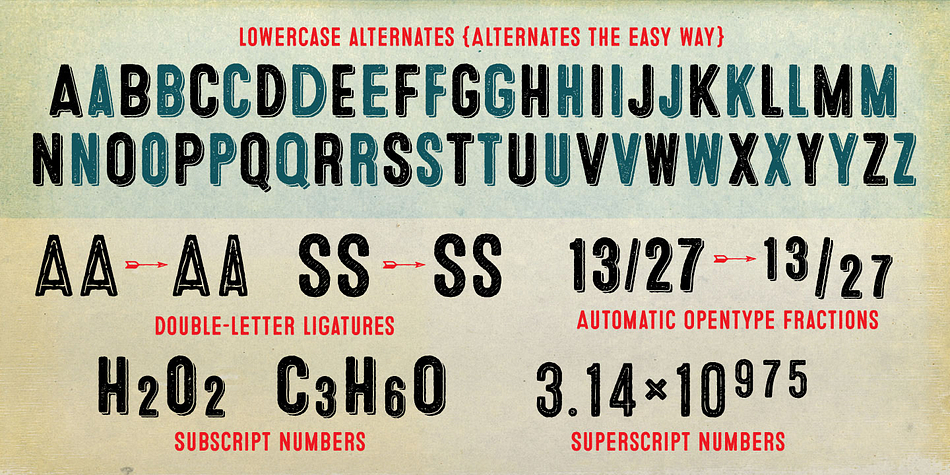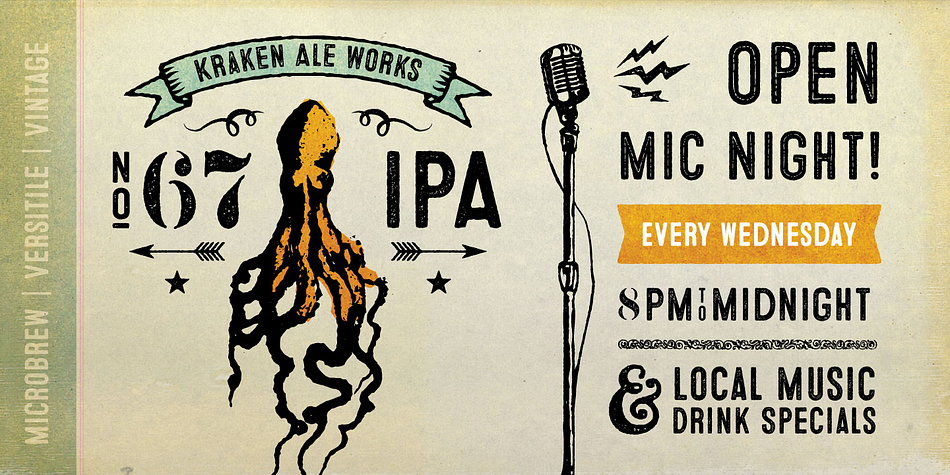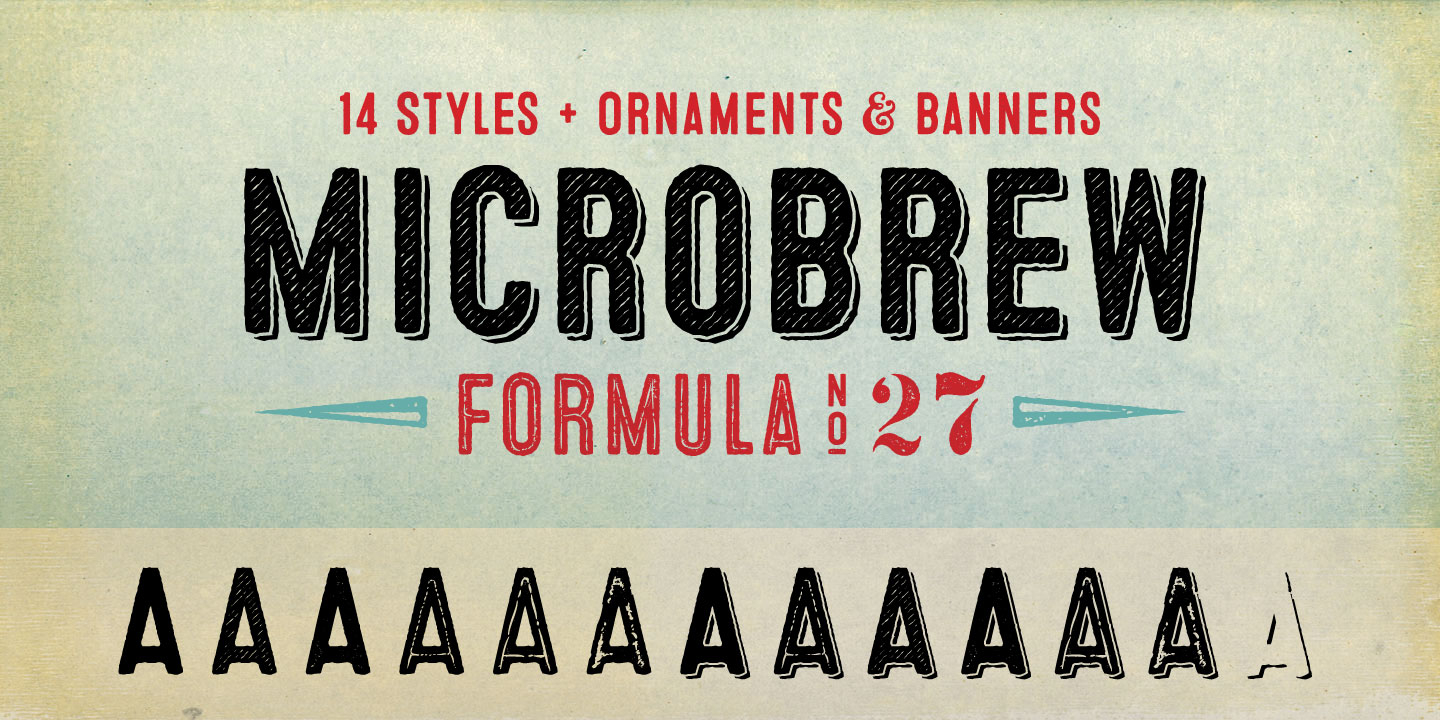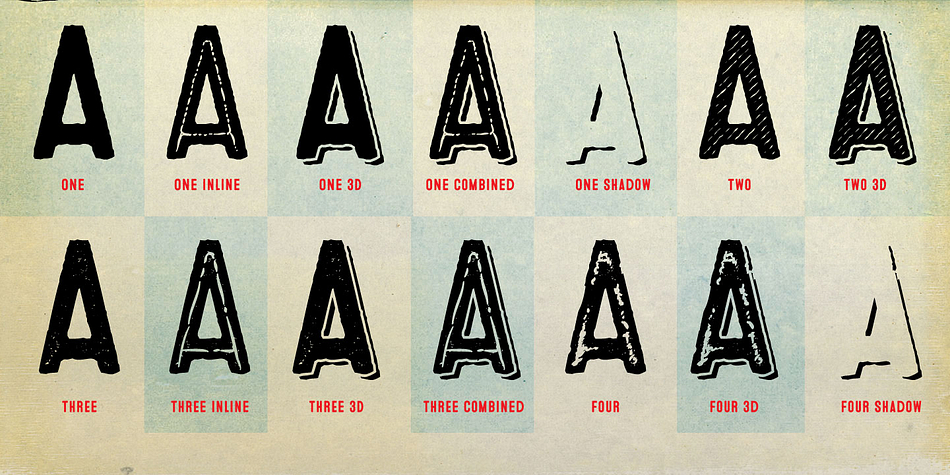
Microbrew is a dingbat, grunge and display sans font family. This typeface has sixteen styles and was published by Albatross.
Microbrew is a versatile retro display family with 14 individual styles, plus retro banners, ornaments, and symbols. It’s a nice mix between wood type poster style, and vintage letterpress. The more detailed styles work well at large sizes, and the cleaner styles add legibility at smaller sizes.
Microbrew is an all caps display font, but the lowercase act as alternates. For super-easy alternates, just mix uppercase and lowercase letters. To add to the realism, Microbrew includes double-letter ligatures. Microbrew also includes a set of extremely intentional ornaments and symbols. Designed to give a vintage feel, the ornaments and symbols compliment Microbrew nicely to round off the family. The ornaments also include catchwords, old style numbers, and lots of retro symbols.
Don’t let the name fool you, Microbrew is very versatile and works great for almost any subject matter, including weddings, birthdays, restaurants, coffee shops, music, and many more.
Opentype features include automatic fractions, subscript numbers, superscript numbers, and double-letter ligatures.